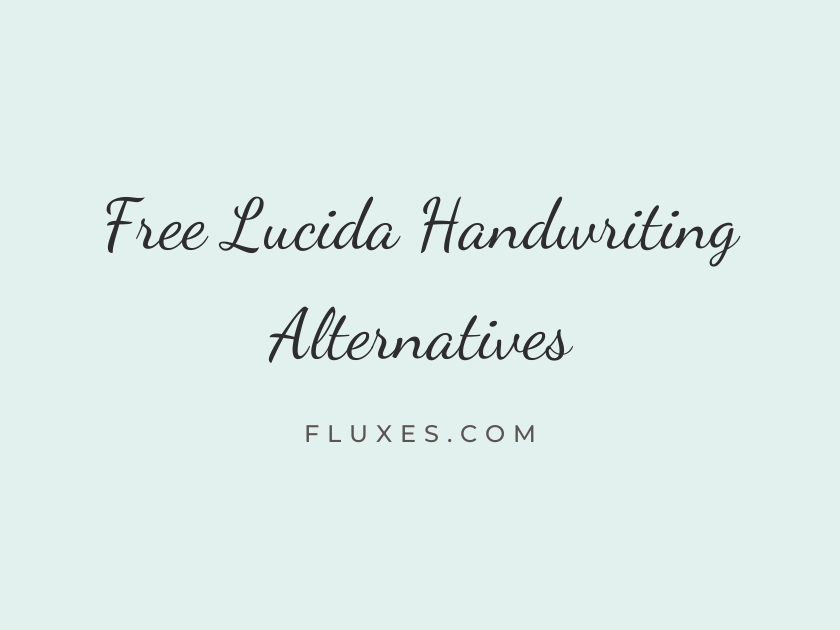
15 Best Free Fonts Alternatives to Lucida Handwriting
Lucida Handwriting has long been the default choice whenever a document, invitation, or greeting card needed a touch of handwritten warmth. It reads as friendly and legible, casual but not sloppy, formal enough for a signature line yet relaxed enough for a note in the margins. The trouble is that it ships as a system font with licensing restrictions, which sends designers looking for free fonts that capture the same easy, human quality without the legal gray area. Google Fonts has a deep bench of script and handwriting families that match or improve on that balance of informality and readability, whether the goal is web body text, a logo, or a printed invite.
Dancing Script is probably the single closest match in spirit to Lucida Handwriting: bouncy, rounded, and easy to read even for people who rarely encounter cursive type. Its looping connections feel handwritten rather than calligraphic, which makes it comfortable on greeting cards, wedding stationery, and website headlines alike. It holds up well at small sizes, a real advantage over more ornate scripts.
Satisfy has the loose, marker-pen energy of a quick handwritten note rather than a formal signature. It works nicely for blog headers, social graphics, or anywhere a brand wants to sound approachable instead of polished. Pair it with a plain sans body font so its casual character stays the focal point.
Kalam started life as a Devanagari-friendly typeface, and that engineering discipline shows in how consistently it renders across weights and scripts. The letterforms lean toward a schoolbook cursive, upright and slightly imperfect in a way that feels authentically penned rather than digitally smoothed.
Caveat trades the elegance of a formal script for the immediacy of a ballpoint pen. It is a strong pick for annotations, sketch labels, or UI moments where text needs to look genuinely handwritten, and it stays crisp even in the smaller weight ranges where many scripts turn muddy.
Marck Script leans more traditional than most of the casual entries here, with a rhythm closer to old-fashioned penmanship class than to a felt-tip doodle. Its stroke contrast is gentle rather than dramatic, so it stays legible in paragraph-length use, which is exactly the territory Lucida Handwriting used to cover in printed letters and certificates.
Courgette rounds off its letters with a soft, confident brush feel that reads as warm without tipping into whimsical. It suits food packaging, cafe signage, and logotypes where a script needs to feel handmade but still commercially tidy. At larger display sizes its thick, single-weight strokes give it real presence on a page or screen.
Norican sits at the more upright, structured end of casual script, closer to brush lettering than to flowing cursive. It has a confident, slightly vintage character that suits branding and packaging more than long passages of text; keep it for headlines and short phrases rather than paragraphs.
Mrs Saint Delafield is built to imitate an actual fountain-pen signature, complete with the kind of flourish you would see at the bottom of a letter. It is a natural stand-in wherever Lucida Handwriting was used purely to mimic a personal signature, though its connected, sweeping strokes mean it should stay reserved for short lines rather than body copy.
Homemade Apple looks like it was written with a felt pen on a napkin, unpolished in the best way. It carries genuine charm for personal projects, diary-style blogs, or packaging that wants to feel one-of-a-kind, but its heavier, uneven strokes can blur together at small sizes, so reserve it for larger display use.
This one reads like a fast, casual hand rather than practiced calligraphy, with a light touch and slight forward lean. It is a favorite for lifestyle blogs and journaling apps that want an informal, diary-like voice, and it pairs comfortably with almost any clean sans for body text.
Yellowtail has a retro, sign-painter quality, with thick, confident strokes that feel closer to brush lettering than pen script. It brings personality to logotypes and short headlines, though its density makes it less suited to anything longer than a phrase.
True to its name, Petit Formal Script is the most restrained and old-fashioned option here, evoking engraved wedding invitations and formal correspondence. It is a good substitute for anyone who found Lucida Handwriting a bit too casual for certificates, diplomas, or formal announcements, since its narrow, upright letters keep a dignified posture even in body-length lines.
Cookie is soft, rounded, and a little playful, with wide loops that give it a friendly, bakery-label feel. It shines in short branding moments like packaging, menus, and social graphics rather than dense text, where its generous curves would start to compete with each other.
Test at the actual size you plan to use before finalizing a choice, since some of the more decorative scripts blur or clash at small sizes on screen.
Any of these free Google Fonts can step in for Lucida Handwriting depending on how formal or playful the project needs to feel, from a wedding invite to a handwritten sticky note in a web app. Downloading and testing a few side by side is the fastest way to find the one that matches your specific tone.